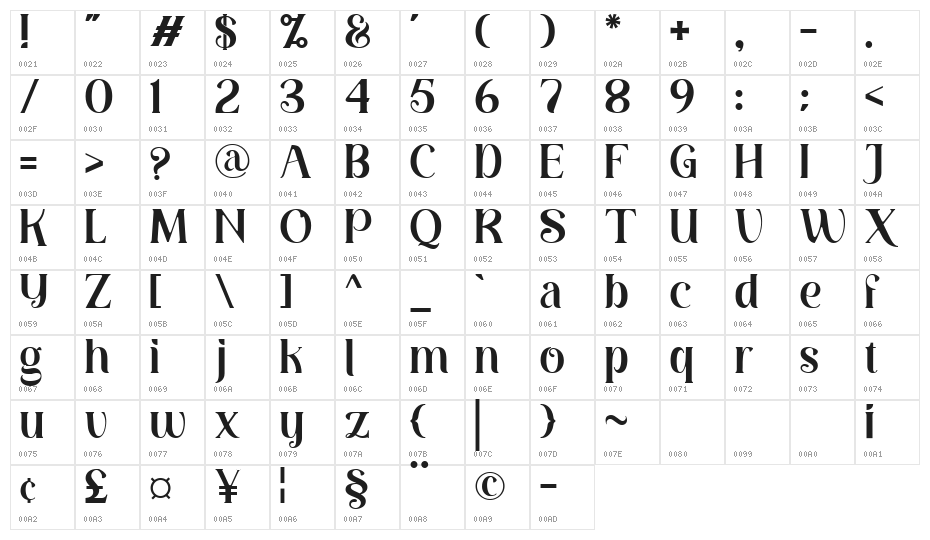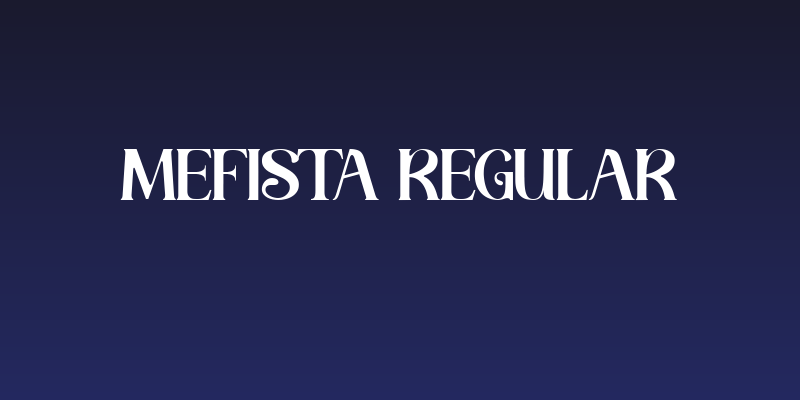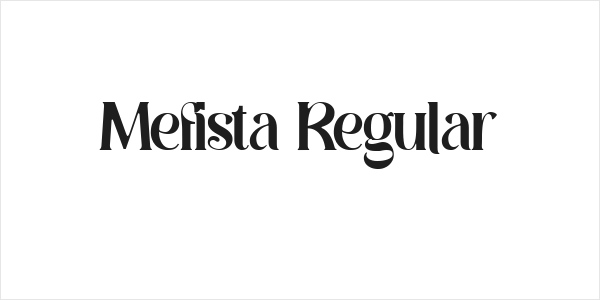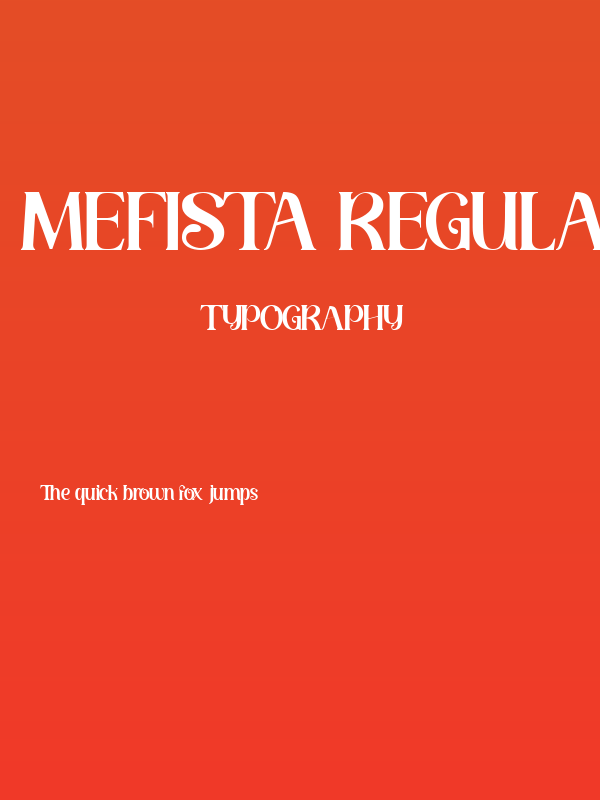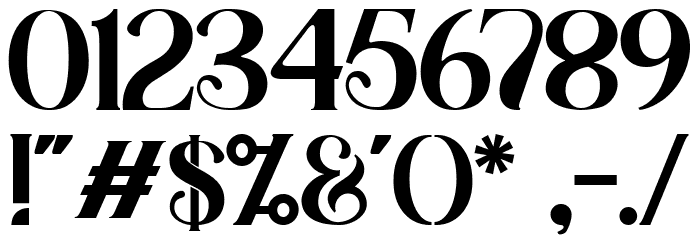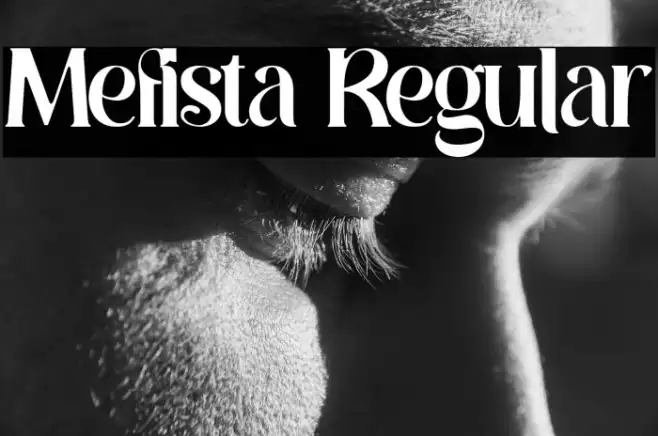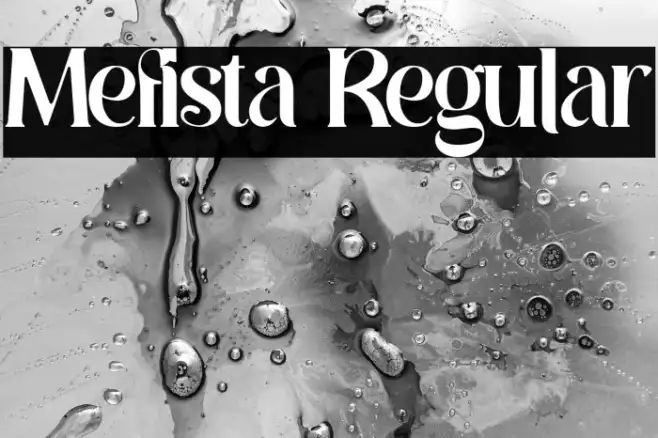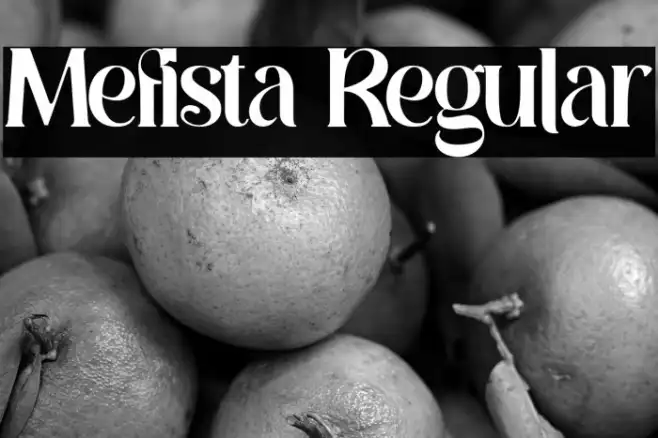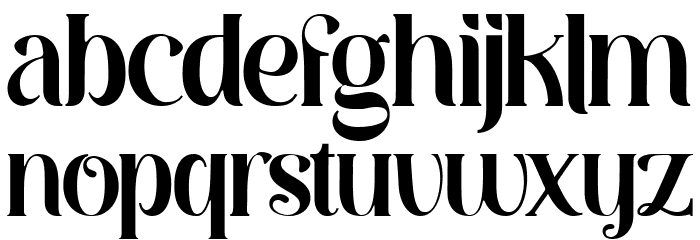
Mefista Regular Font
Mefista Regular Description
This font features a unique blend of modern and classic elements, characterized by its bold, high-contrast strokes and elegant curves. The uppercase letters exhibit a strong presence with their thick vertical lines and subtle serifs, while the lowercase letters maintain a playful yet sophisticated appearance with their rounded forms and distinctive tails. The numerals are equally striking, with a consistent weight that ensures readability. Special characters are thoughtfully designed to complement the overall aesthetic, making this font versatile for various design needs.